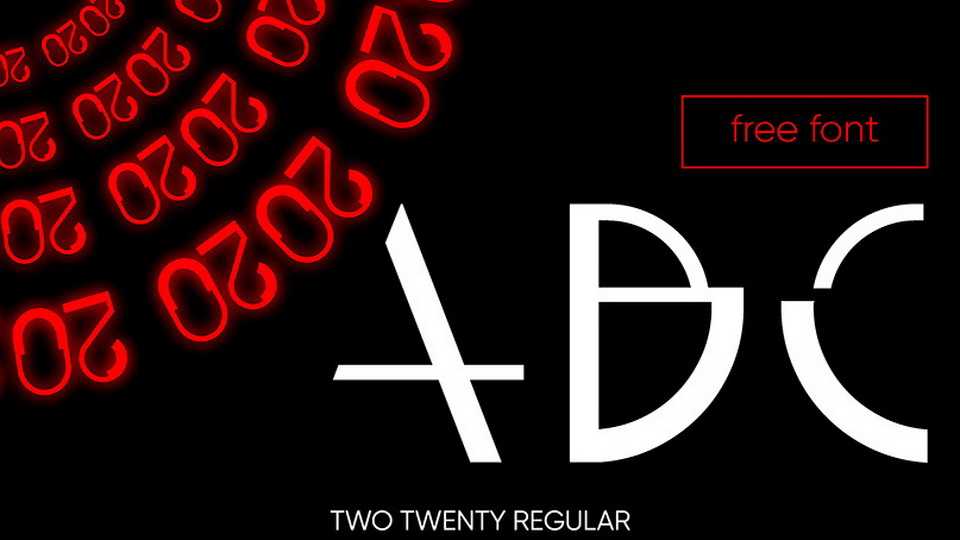
Download TWO TWENTY font, a unique display typeface developed under the influence of 2020, which also explains the origins of its name. TWO TWENTY can be used in various styles.
Designer: Sergiy Kulikov